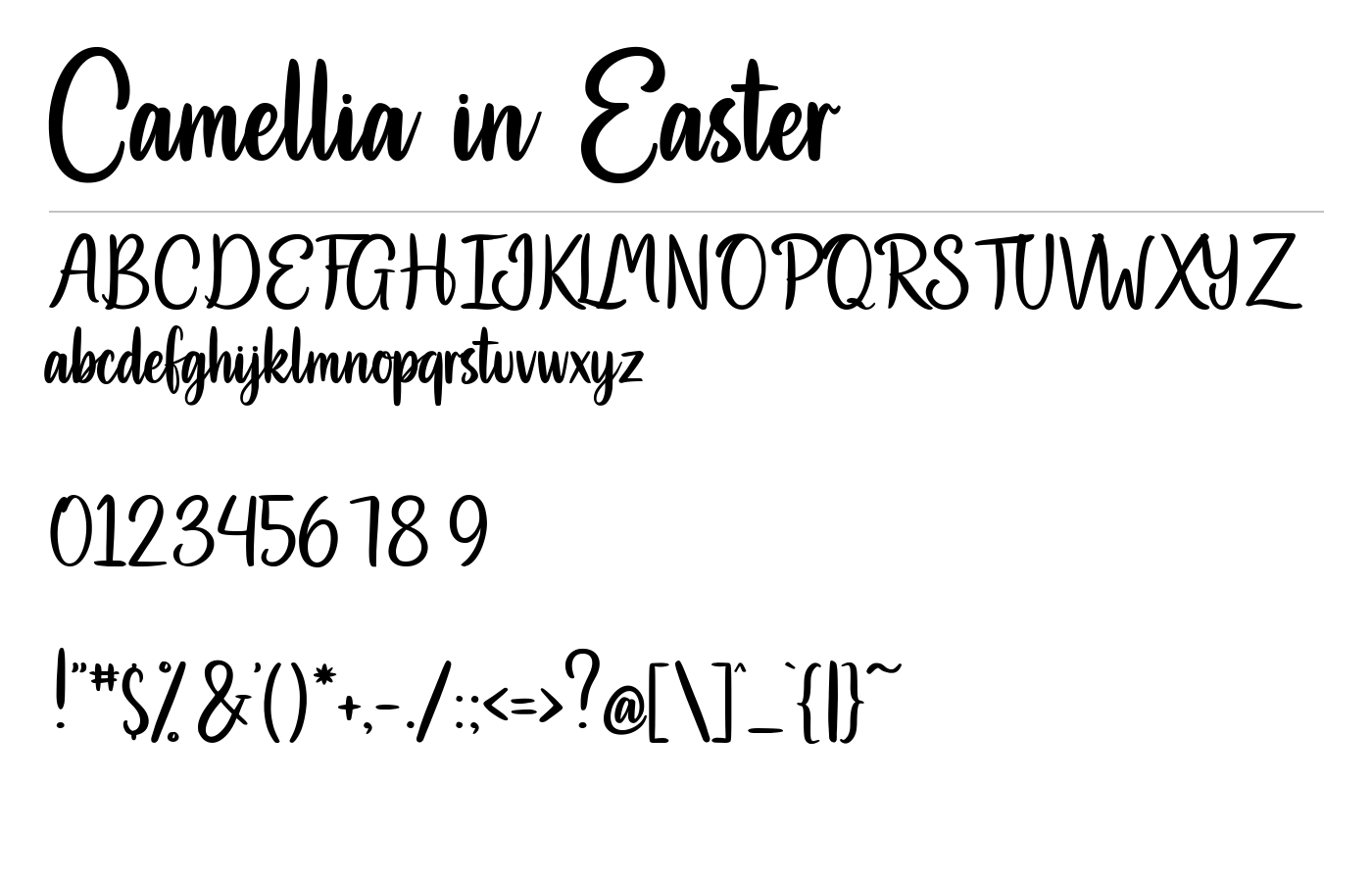
Camellia in Easter is a playful and casual script font with a handwritten feel, featuring smooth, rounded strokes and a moderate contrast that adds charm without sacrificing readability. Its tall x-height, quirky uppercase letters, and lively lowercase forms make it perfect for creative projects, invitations, and branding that seeks a friendly and approachable vibe. This font works well for headlines, logos, and packaging where a warm, informal personality is desired.
Camellia in Easter Font
About Camellia in Easter Font